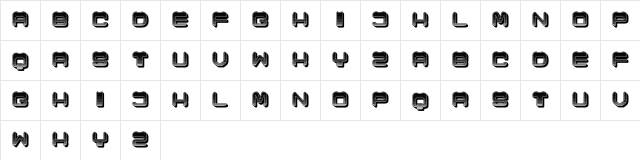
Cronica Gradient Regular
Design Context for Cronica Gradient
Cronica Gradient is a composed and adaptable typeface that performs quietly and consistently across a wide range of design contexts.